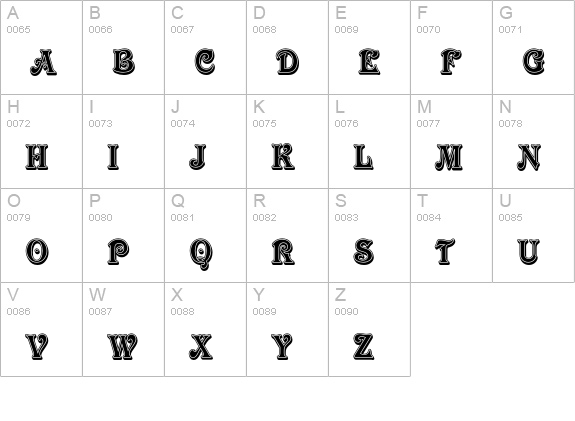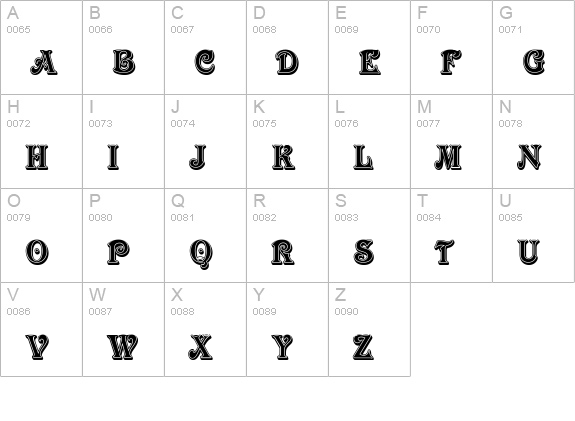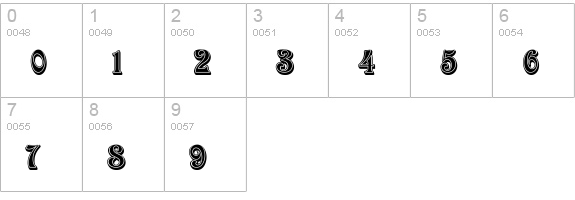
The Victorian Inline Shaded Std font is a stunning and intricate typeface that beautifully captures the essence of the Victorian era. With its ornate detailing and elegant curves, this font brings a touch of old-world charm to any design project. The Victorian Inline Shaded Std font features a unique combination of thin lines and shaded elements, creating a sense of depth and dimension. It is perfect for adding a touch of sophistication to invitations, logos, headlines, and more. This font is not only visually appealing but also highly versatile. It can be used in both formal and informal settings, making it suitable for a wide range of creative projects. One of the best things about the Victorian Inline Shaded Std font is that it is freely available to download at FontsMarket.com. This means that you can easily access and use this font without any restrictions. Whether you're a professional designer or simply someone who loves experimenting with different fonts, this free download is sure to be a valuable addition to your collection. So, why wait? Enhance your designs with the timeless beauty of the Victorian Inline Shaded Std font. Download it for free at FontsMarket.com and let your creativity soar.